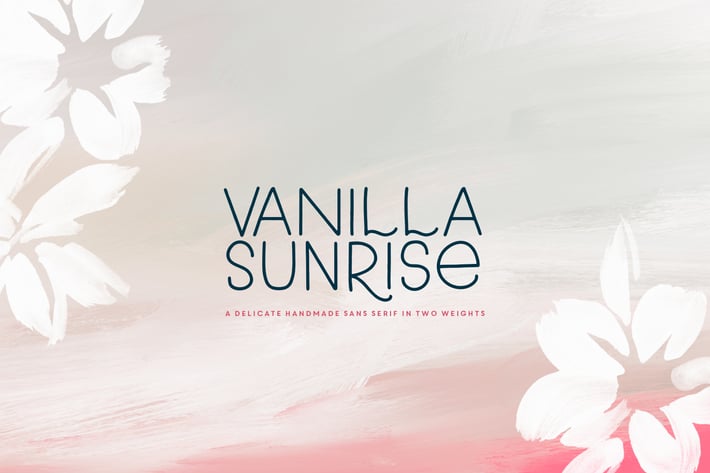
Vanilla Sunrise Font
Say hello to Vanilla Sunrise, a sweet monoline sans serif with double letter ligatures and select alternates. Use on logos, greeting cards, stickers, quotes and more!